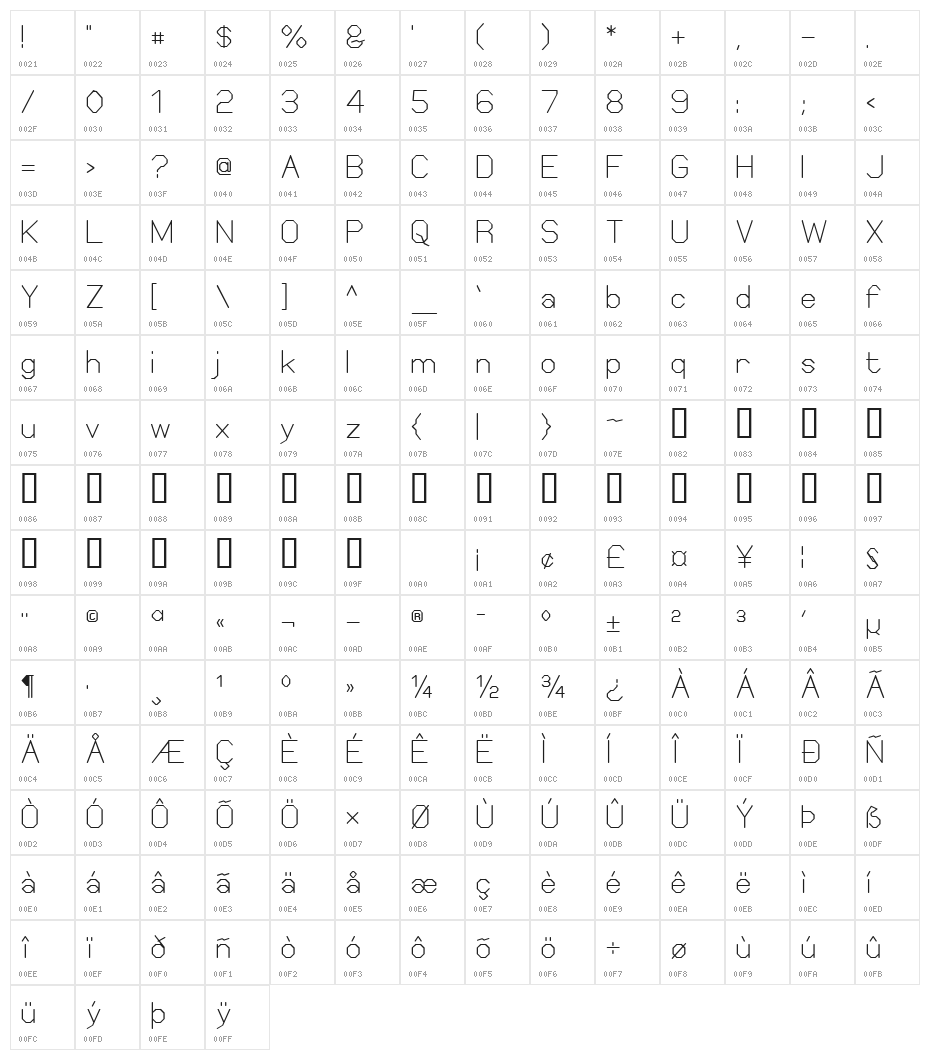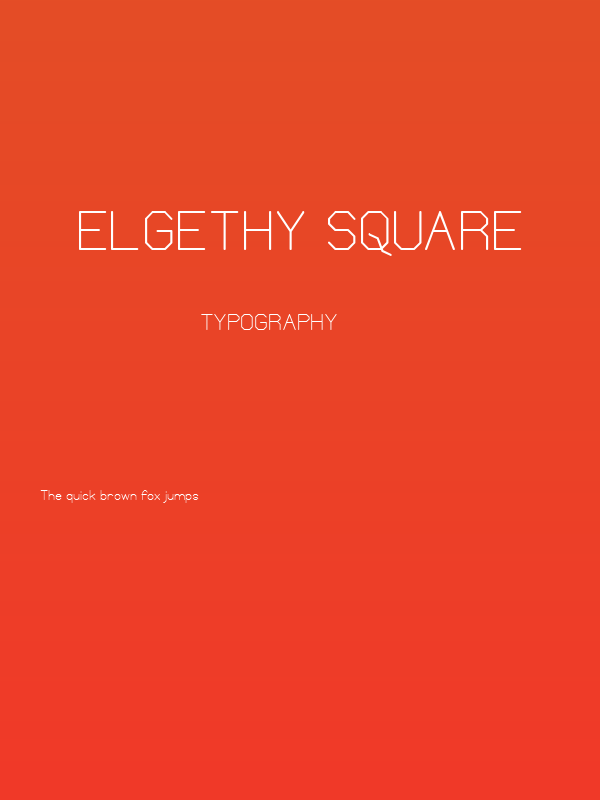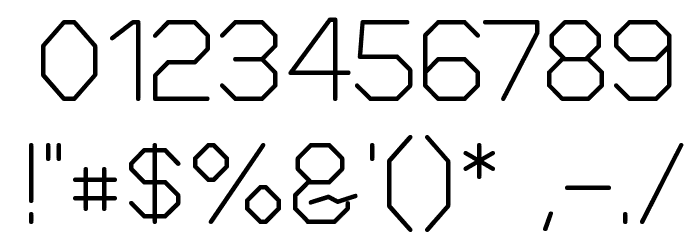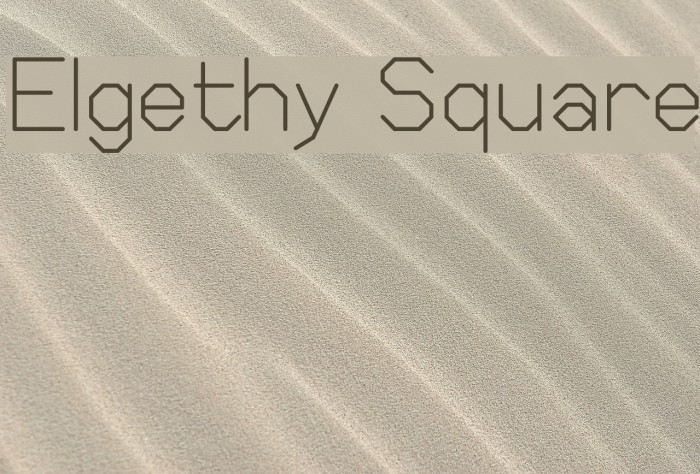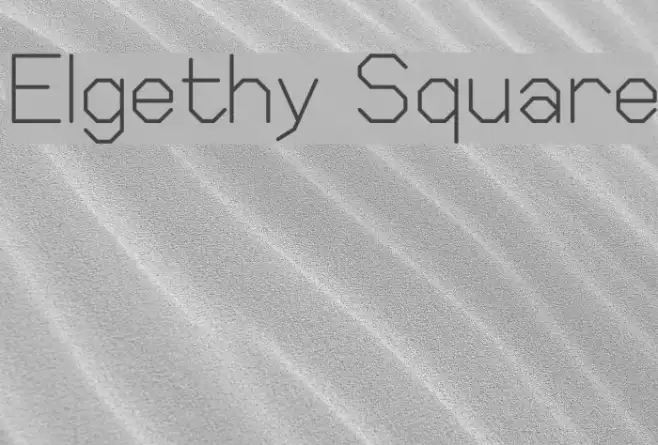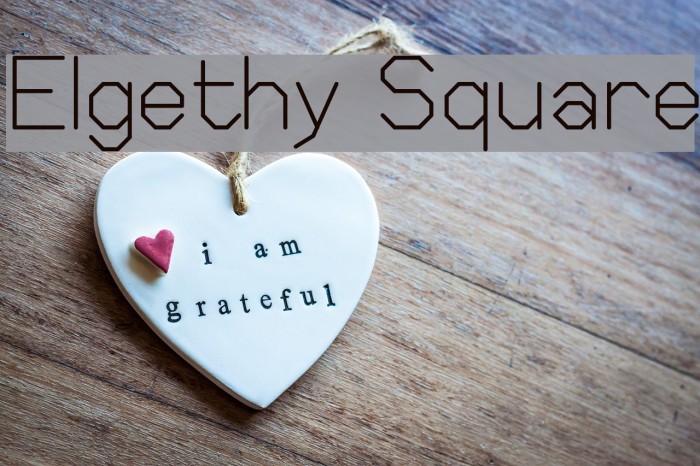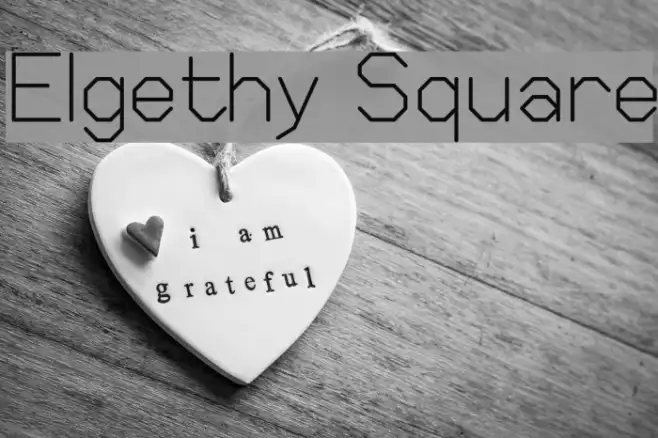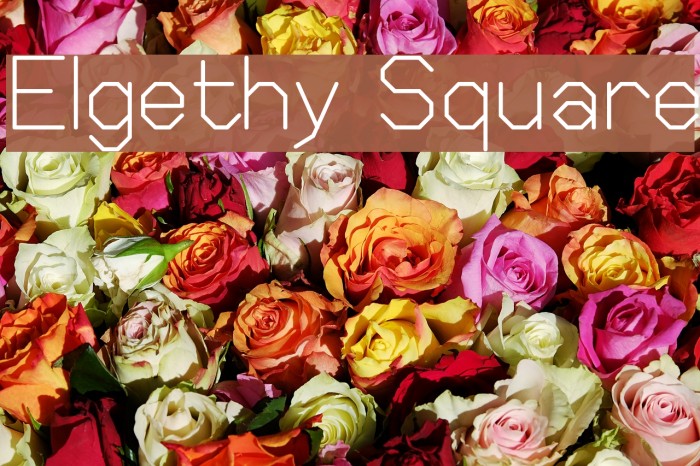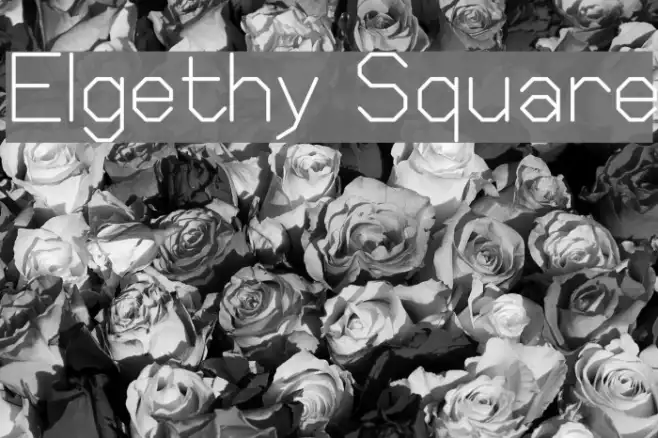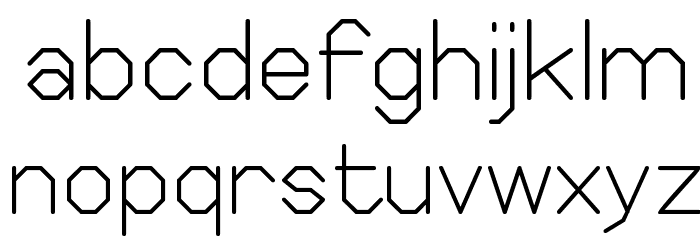
Elgethy Square Font
Elgethy Square Description
This font features a geometric and angular design, characterized by its sharp edges and straight lines. The characters are constructed with a consistent stroke width, giving it a uniform appearance. The uppercase and lowercase letters maintain a similar structure, enhancing readability while preserving the unique style. Numbers and special characters follow the same geometric pattern, making them easily distinguishable. The font's modern and technical aesthetic makes it suitable for projects that require a futuristic or digital look.
| Use Case | Logos, Headlines, Digital interfaces |
| Proposed Projects | Ideal for tech branding, digital interfaces, futuristic posters, and modern architectural designs. |